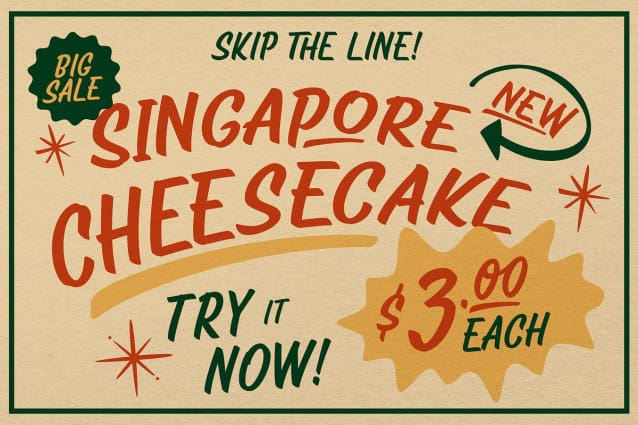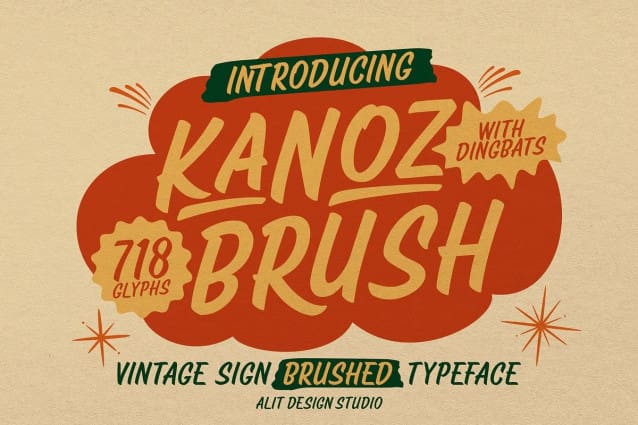
Kanoz Brush Font
Kanoz Brush Font is a meticulously crafted font that captures the essence of vintage sign art with a modern twist. Inspired by traditional hand-painted signs, this typeface showcases bold, sweeping brush strokes and a natural, textured look that brings an authentic, handcrafted feel to any design.